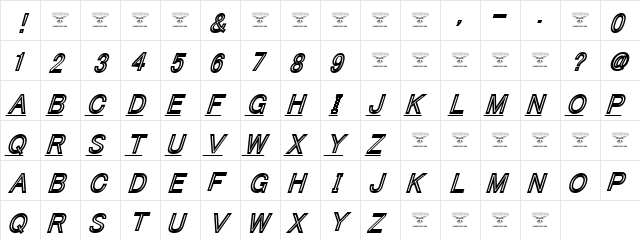
Tha Cool Kidz Black Black Italic
| Foundry | Font Monger |
| Designer | Chris Vile |
Design Context for Tha Cool Kidz Black Typeface
Tha Cool Kidz Black offers clean, dependable letterforms without strong stylistic allegiance, making it a practical choice for designers who need flexibility. The dynamic lean of this cut emphasises speed and emphasis in any layout.
Pro Tip: Use Tha Cool Kidz Black for emphasis, pull quotes, and subheadings where its slanted energy can add rhythm to the layout.